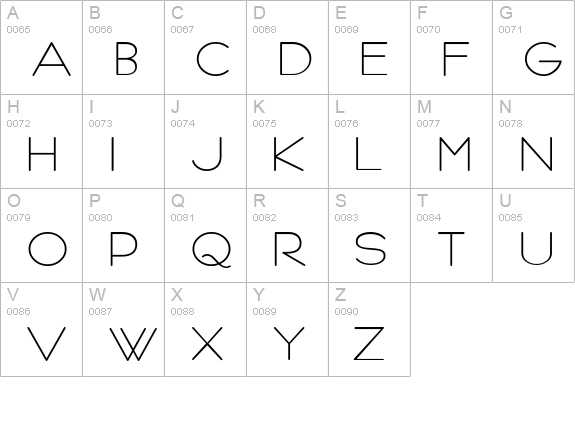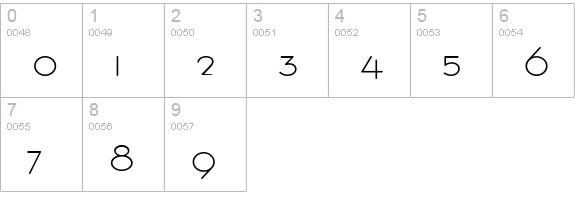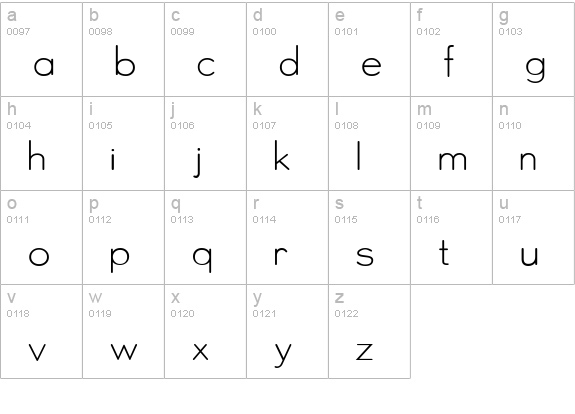
Persnickety HPLHS Font Details
Introducing Persnickety HPLHS font, a captivating typeface designed to bring a touch of elegance and sophistication to your creative projects. With its intricate letterforms and meticulous attention to detail, this font exudes a unique sense of charm that is sure to captivate the eye. Persnickety HPLHS font offers a harmonious blend of classic and contemporary elements, making it a versatile choice for a wide range of design applications. Whether you're designing a logo, creating stunning typography for print or digital media, or crafting invitations and stationery, this font will effortlessly elevate your designs to new heights. What sets Persnickety HPLHS font apart is not only its exquisite design, but also its exceptional versatility. With a wide range of weights and styles, including regular, italic, bold, and bold italic, this font allows you to effortlessly convey various moods and messages in your designs. But what truly sets Persnickety HPLHS font apart is the fact that it is freely available to download at FontsMarket.com. Yes, you read that right – this exceptional font can be yours without any cost. So whether you're a professional designer or a hobbyist, you can enjoy the beauty and functionality of this font without breaking the bank. So why wait? Enhance your design projects with the enchanting allure of Persnickety HPLHS font. Download it for free today at FontsMarket.com and unlock a world of endless possibilities for your creative endeavors.